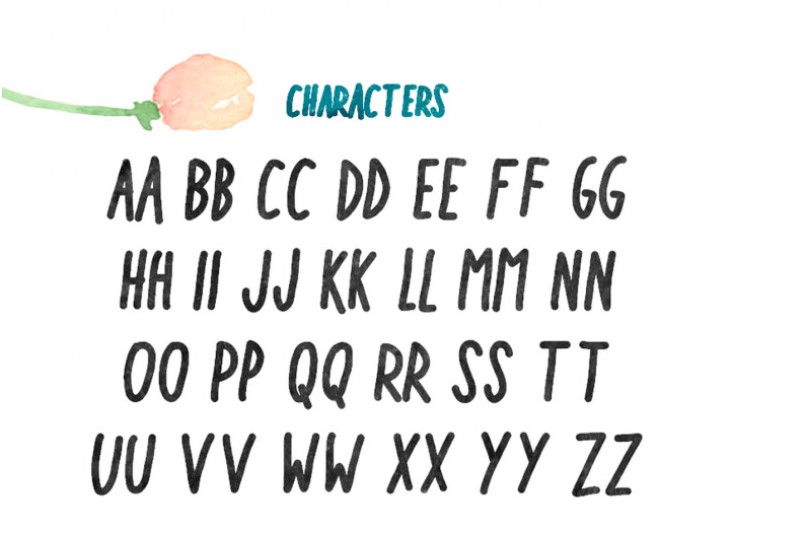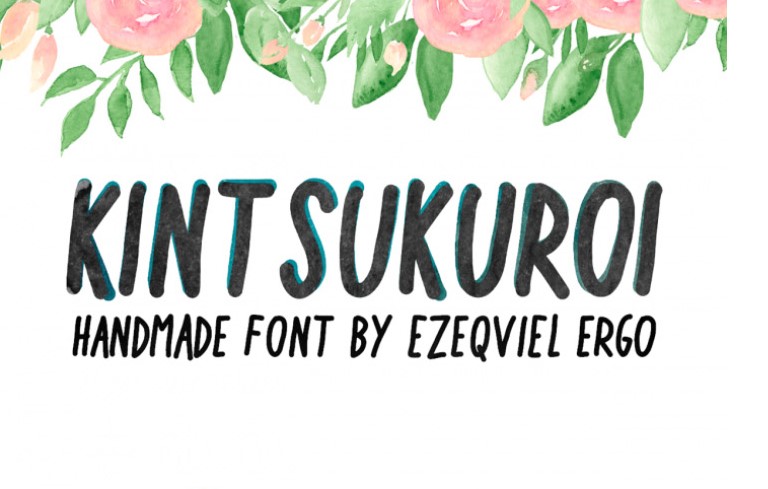
Kintsukuroi Font
Kintsukuroi Font is well-known for its pairing function. This typeface is famous for its text generator characteristic. This is one of the brilliant fonts. This font is an adorable collection particularly designed for easy and cozy on-display assessment.
It‚Äôs orderly, has the enjoyment of the top-notch detail. It furthermore components four hundred glyphs and exchange characters. The font consists of all characters in every uppercase and lowercase letters. Now, you may have your personal preferred serif font and it can or won’t seem on our listing, but, we recommend taking inside the path of getting a take a look at the options.